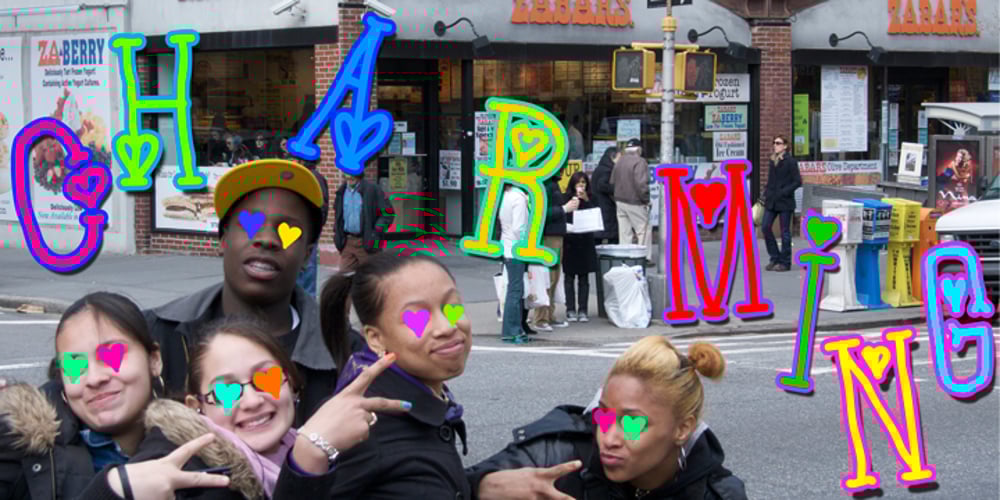
Capital Love Font Family was designed by Harald Geisler and published by Harald Geisler. Capital Love contains 1 styles and family package options. Capital Love just contains capital letters decorated with hearts. By pressing a lowercase button a alternative to the uppercase letter will appear. All shapes are drawn individually and do not oblige a geometrical system. The lighthearted vivid ductus remind me of a quality that can be found in the dynamics of Keith Haring drawings. Capital Love is a part of the Light Hearted Font Collection that is inspired by a recording of Jean Baudrillard with the title, “Die Macht der Verführung” (The Power of Seduction) from 2006. Further inspiration came from the article, “The shape of the heart: I’m all yours”. The heart represents sacred and secular love: a bloodless sacrifice. by British writer Louisa Young printed in EYE magazine (#43) London, 2002.